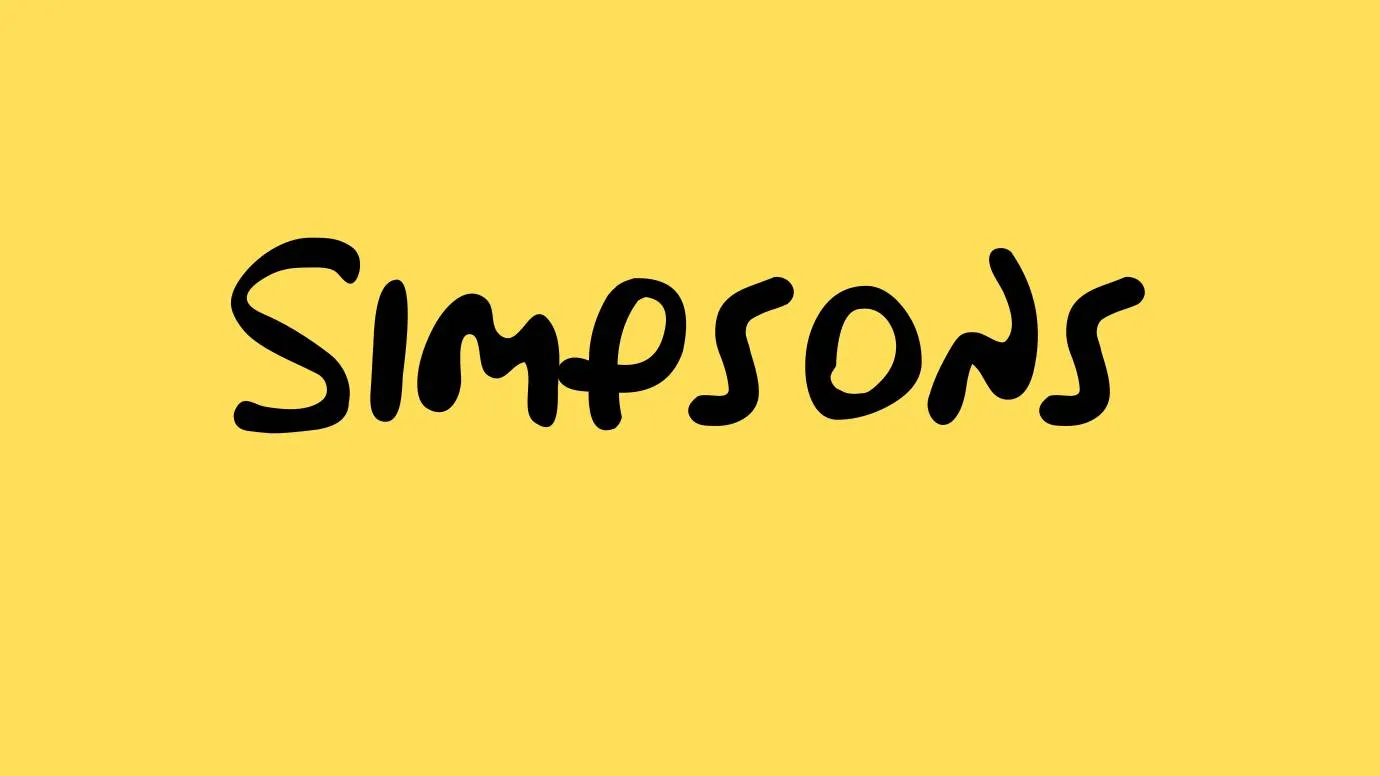
Simpsons Font Family is a modern script handwritten font. Sharkshock is the main and real designer of this font family. This typography is categorized as the handwritten family of fonts. This typeface and keen and clean features.
Simpsons Font
NameSimpsons Font
TypeHandwritten
DesignerSharkshock